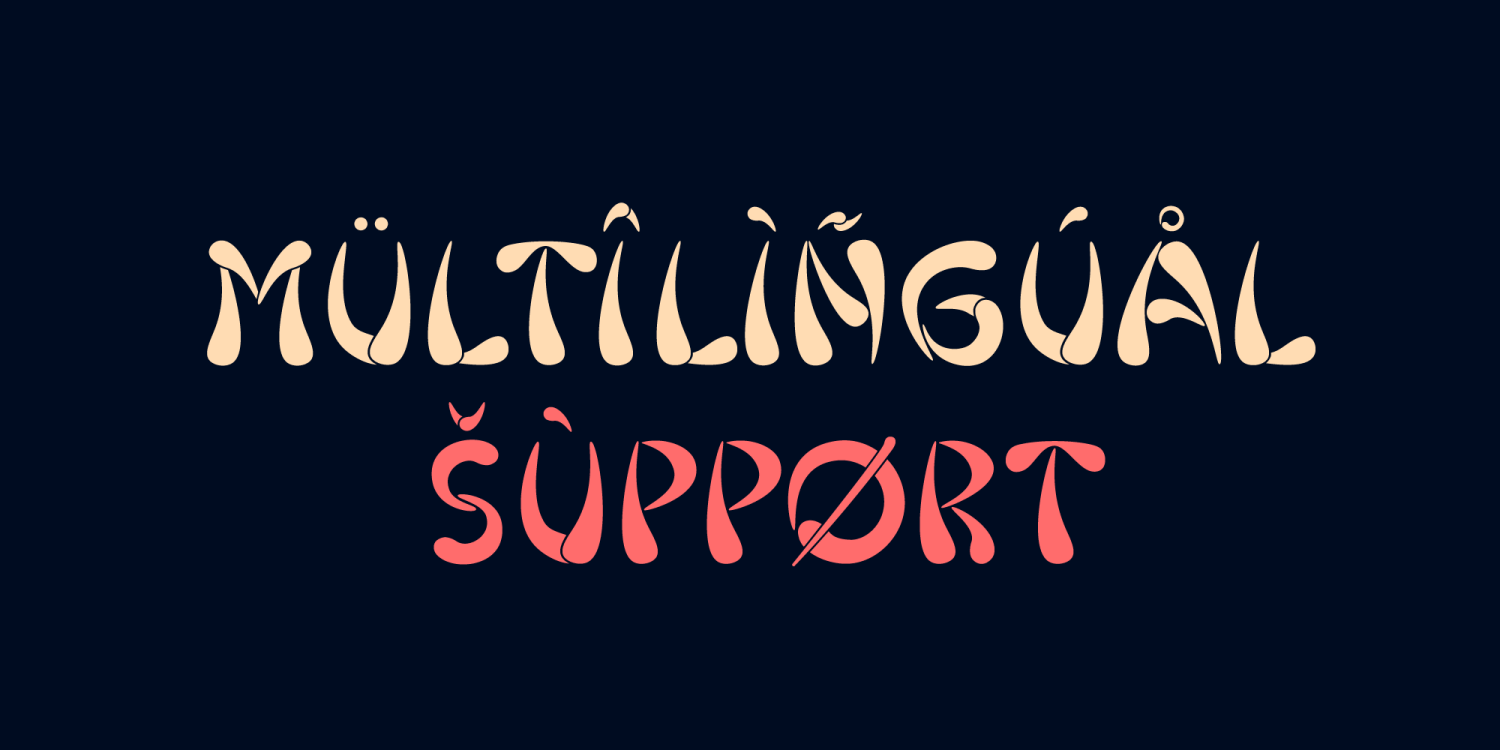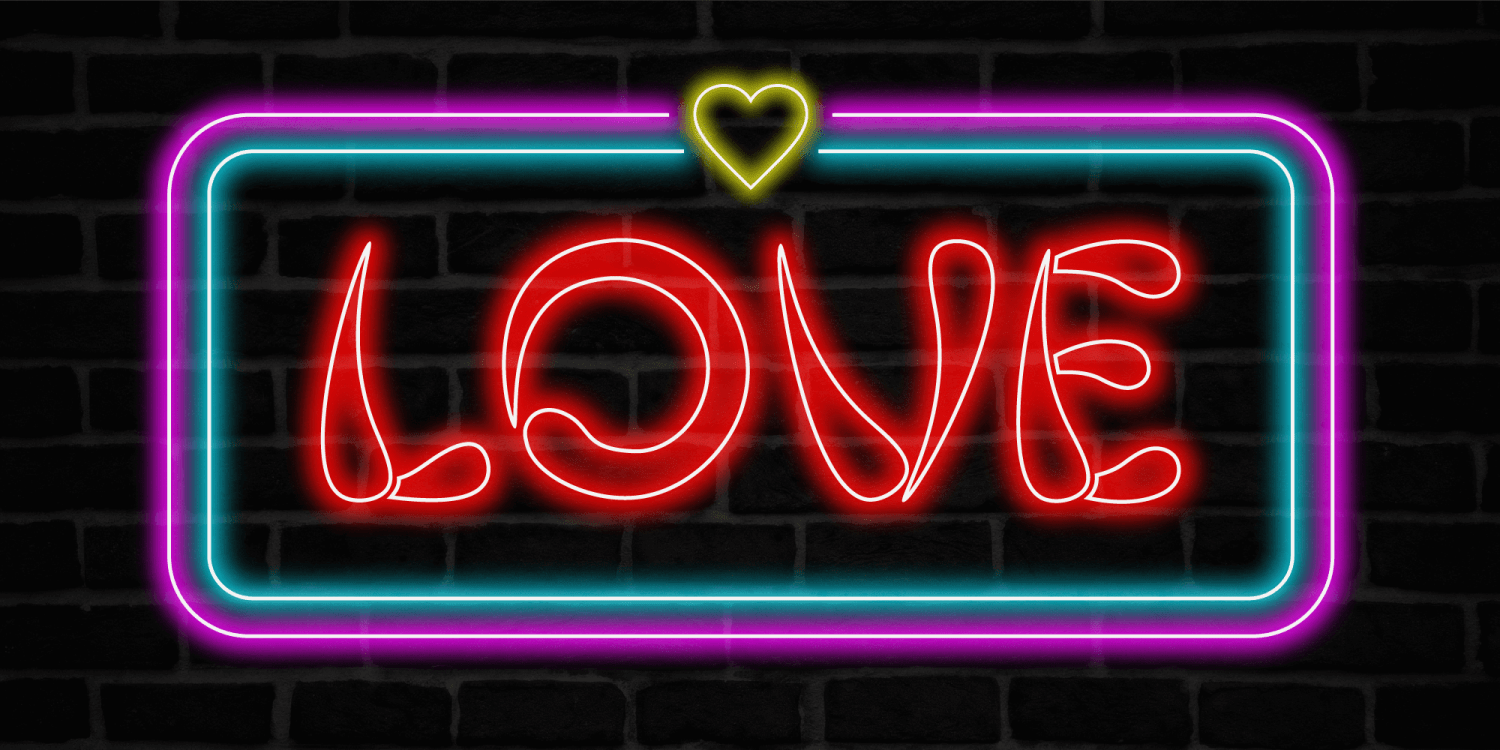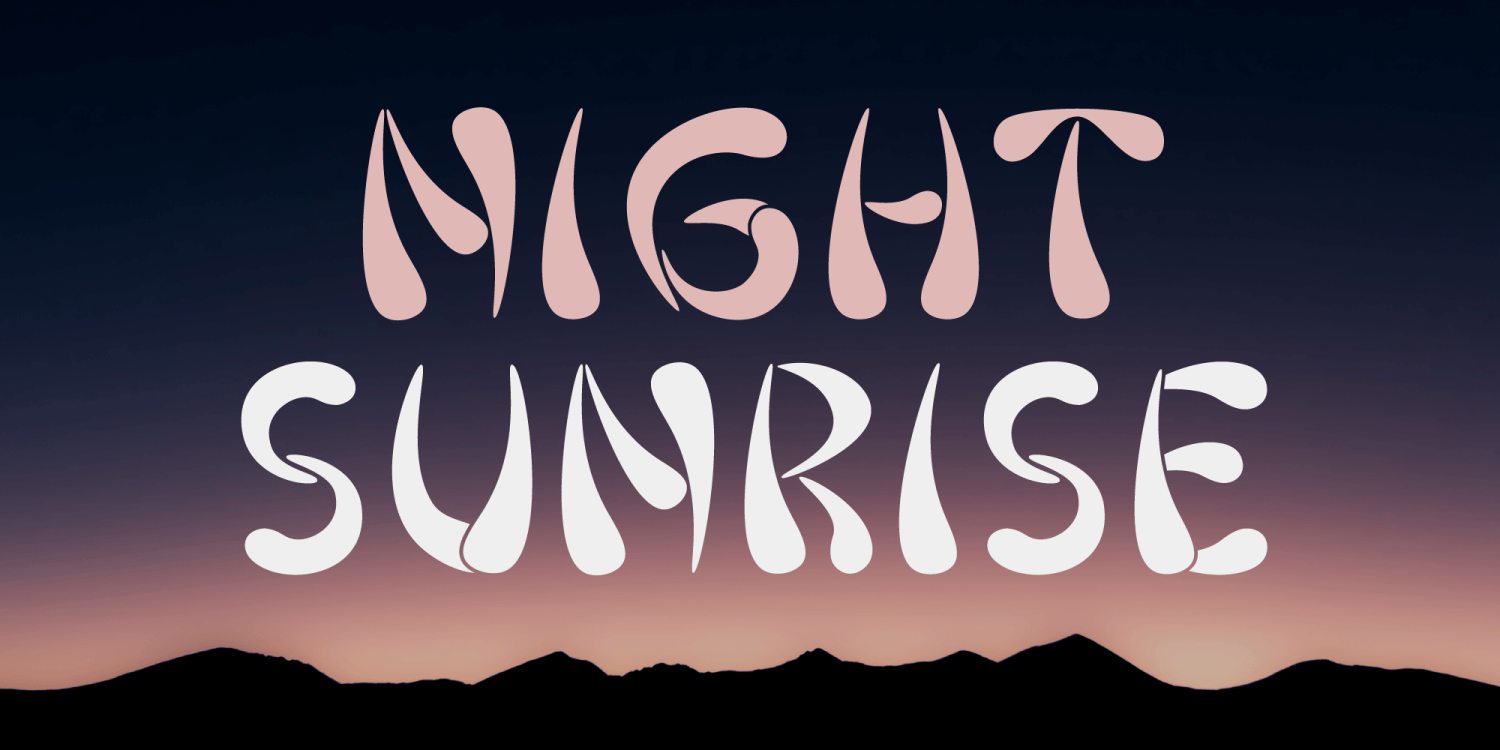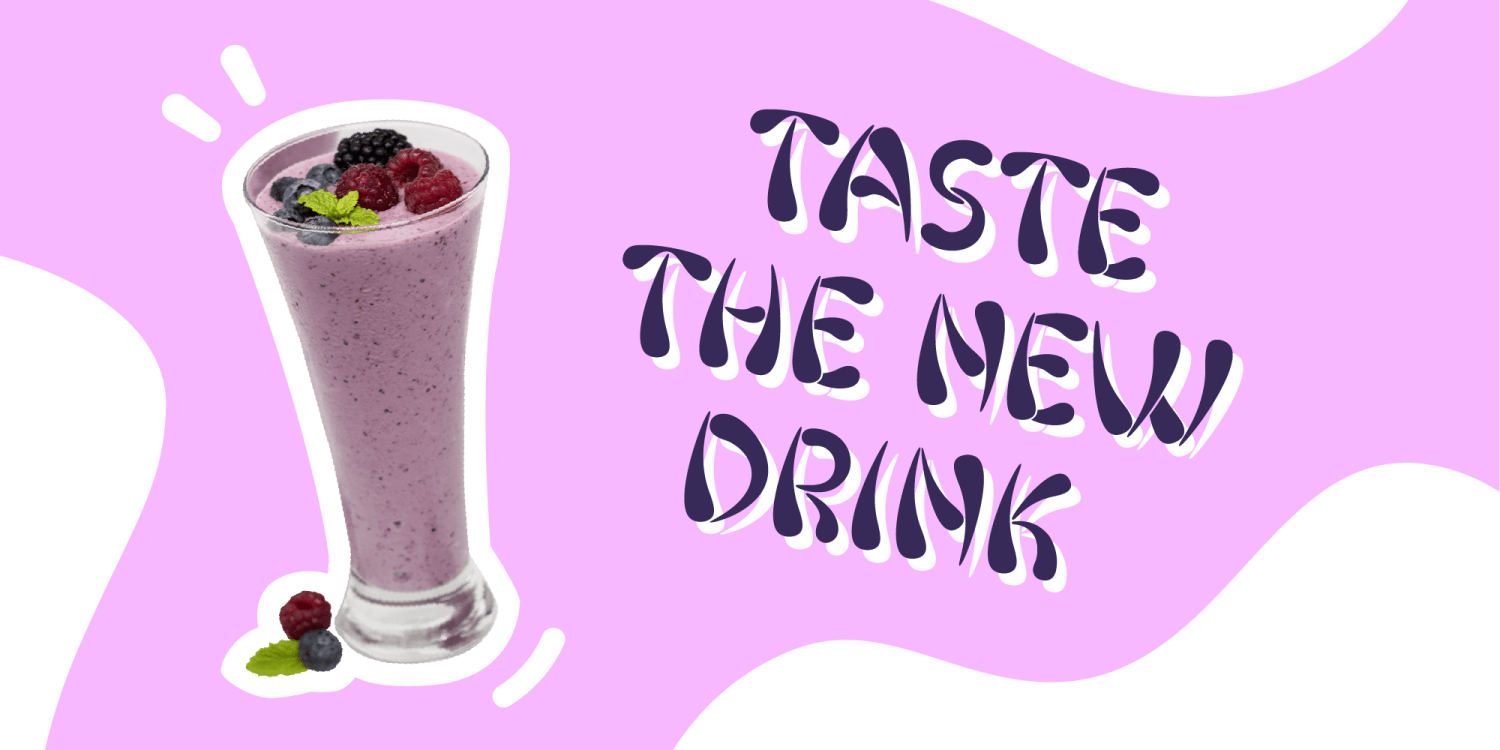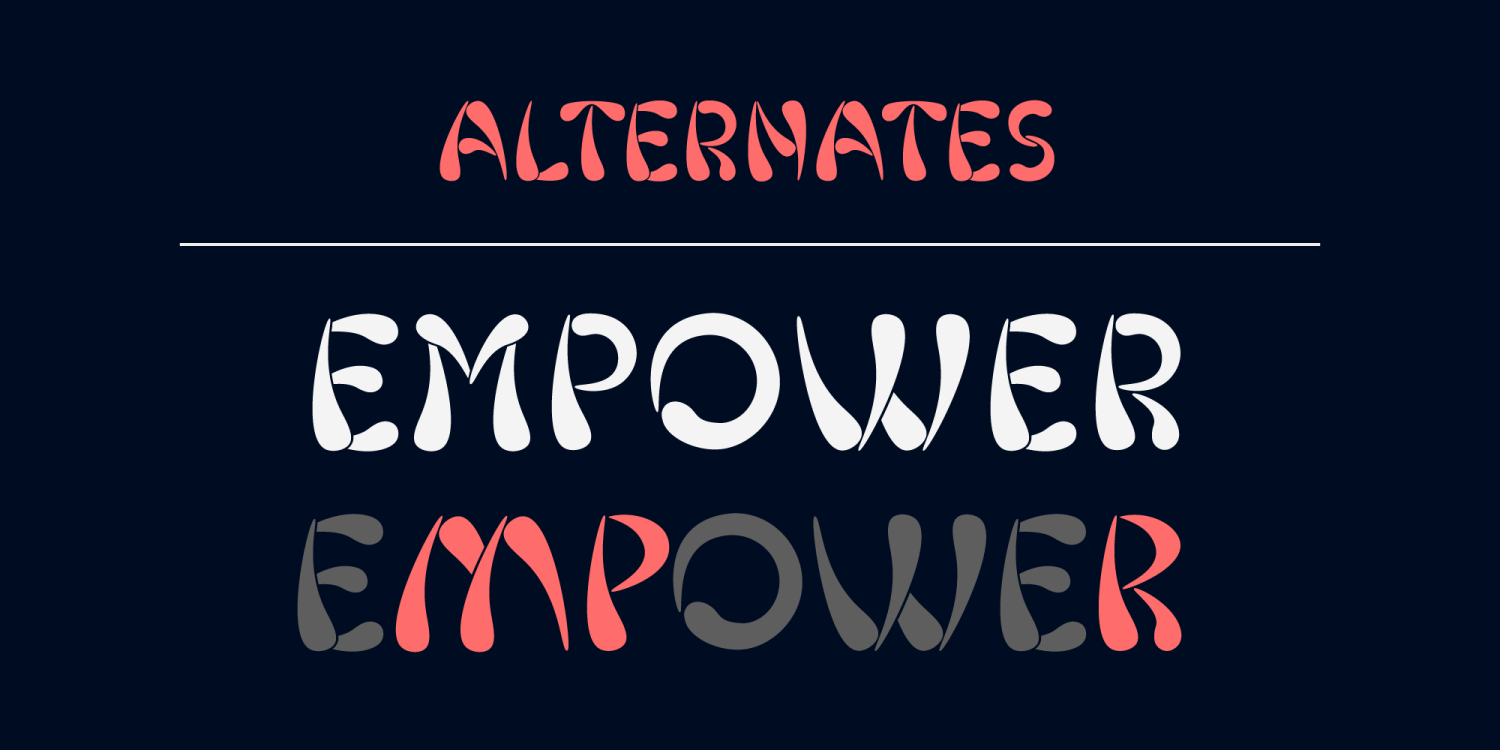
Hawaii Summer is a fresh and playful display font, designed to bring a unique style to your project. Its natural look makes it perfect to be integrated into exotic environments, thanks to the warm vibes that its lines transmit. It is suitable for multiple…